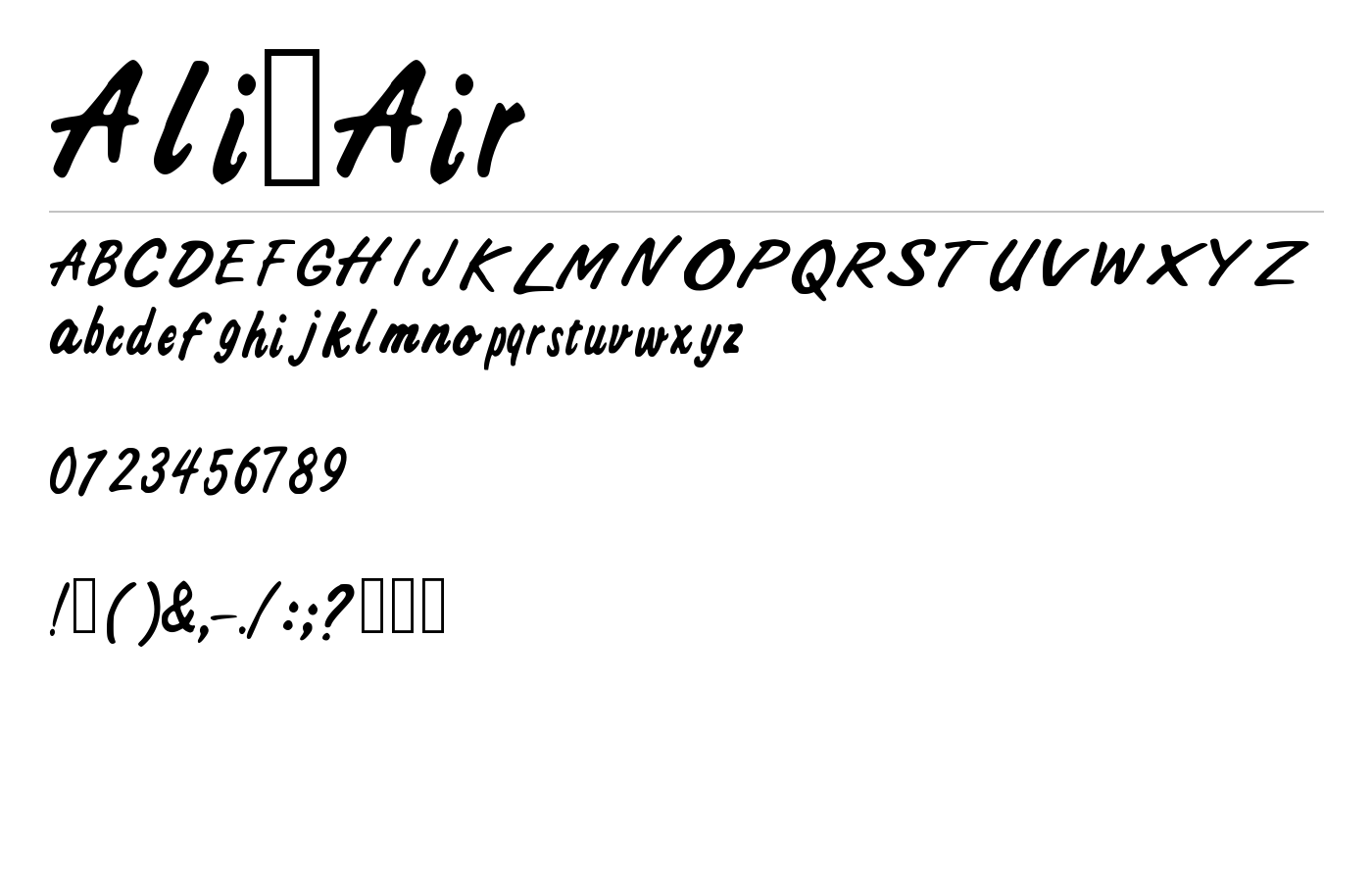
Ali_Air is a casual, handwritten script font featuring smooth, flowing strokes with moderate contrast and a slightly condensed width. Its lively and informal character makes it perfect for projects that want to convey friendliness and approachability, such as personal branding, creative invitations, or playful editorial content. This font’s natural, handwritten style adds a personal touch while maintaining clear readability, ideal for headlines or short text in both print and digital media.
Ali_Air Font
About Ali_Air Font